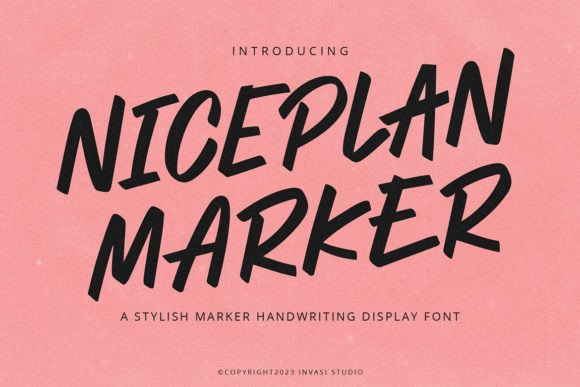
Unveil the charm of Niceplan Font, a meticulously designed script font family that captures the authentic beauty of handwritten marker notes. With its flowing strokes, organic curves, and delightful Opentype ligature feature, Niceplan breathes life into your words, creating a natural and eye-catching impression.
Immerse yourself in the artistry of Niceplan, carefully crafted by the talented team at invasistudio. Each glyph exudes a genuine handwritten charm, adding a personal touch to your designs. Let Niceplan's authentic marker look elevate your projects with its unique and expressive style.
Experience the versatility of Niceplan, a font that effortlessly adapts to a wide range of creative endeavors. Whether you're crafting captivating cosmetics logos, adding a touch of elegance to your wedding invitations, or creating standout social media graphics, Niceplan seamlessly blends into your vision, enhancing it with its timeless appeal.
Captivate your audience with Niceplan's multilingual capabilities. This remarkable font embraces various languages, allowing you to communicate your message to a global audience. Express yourself authentically, regardless of linguistic boundaries, and let your designs resonate with people from all walks of life.